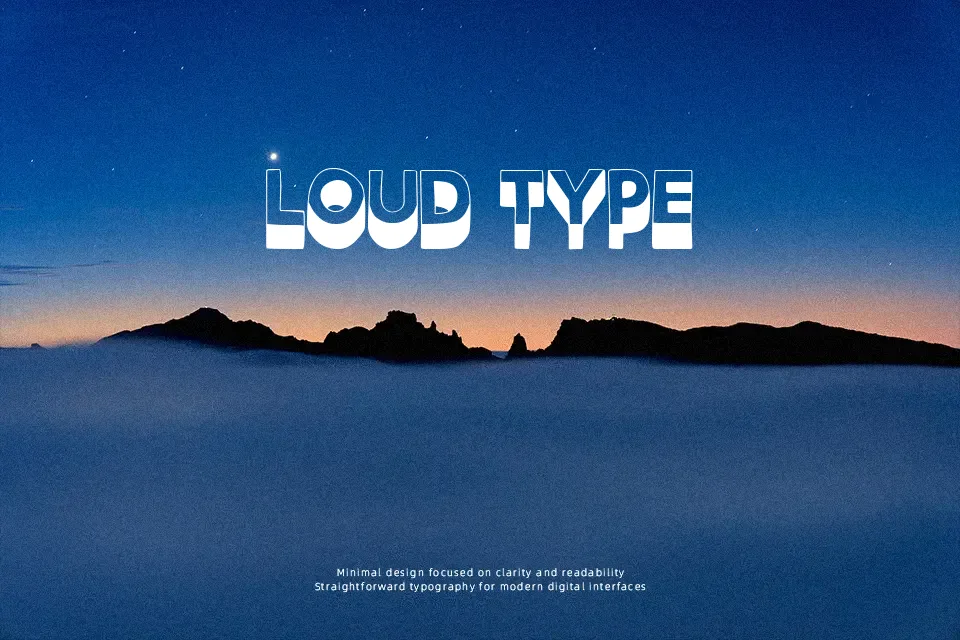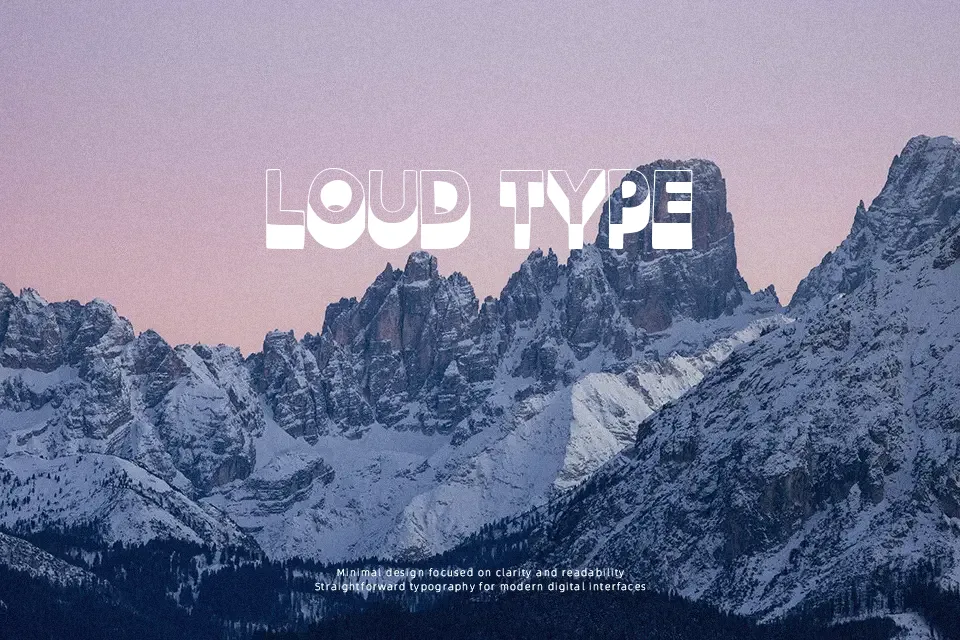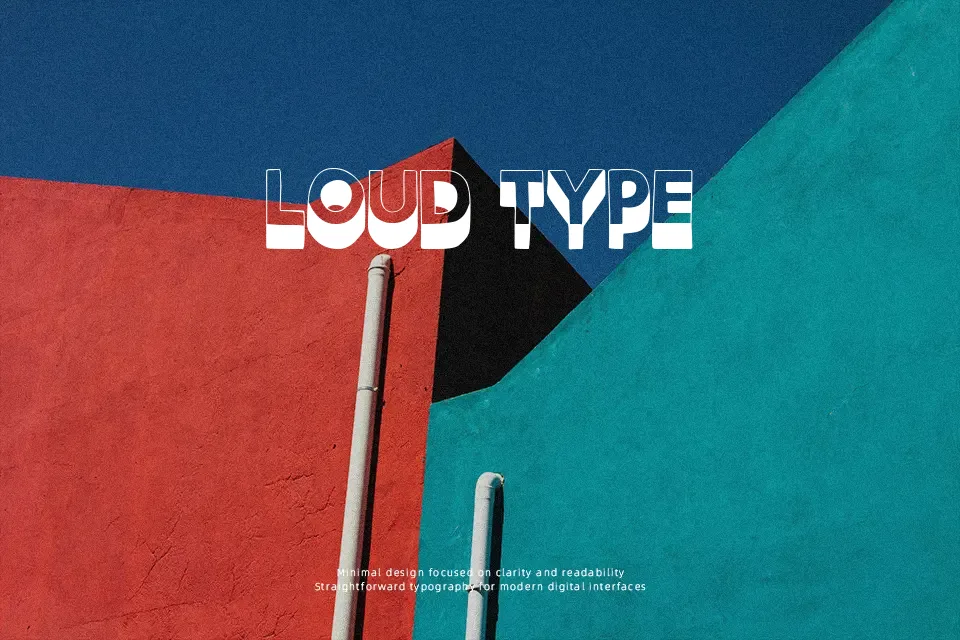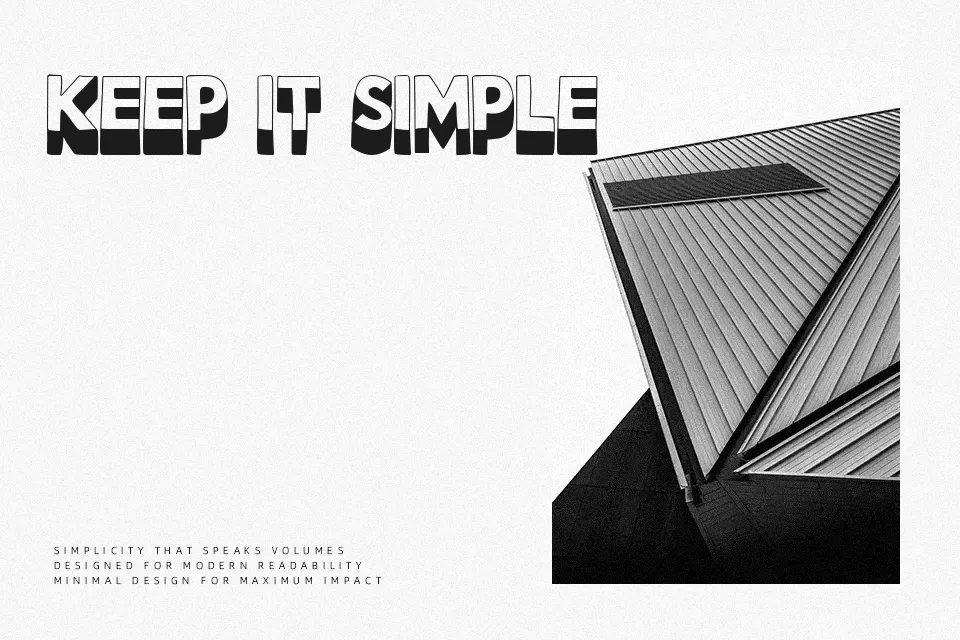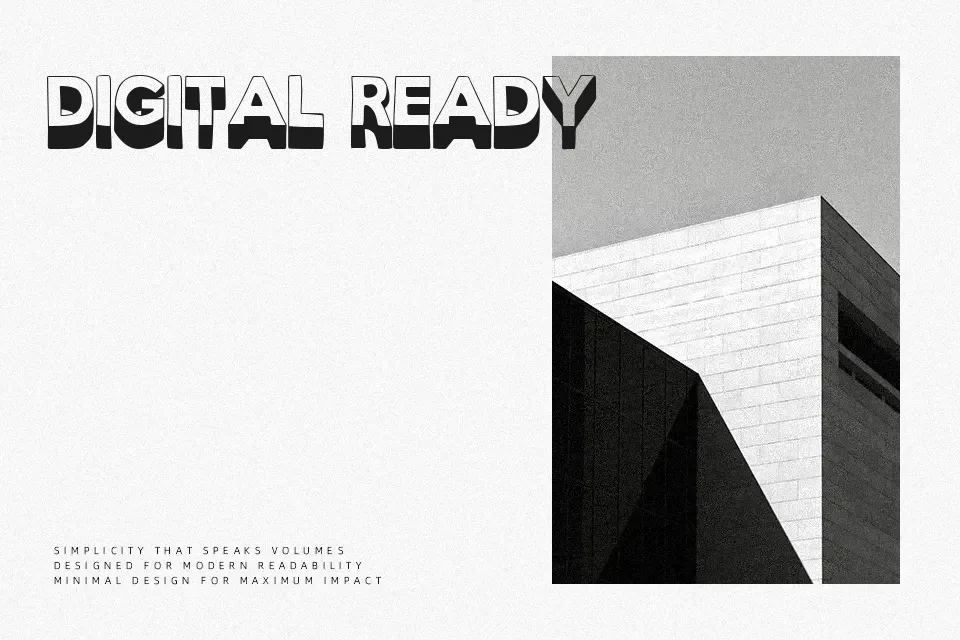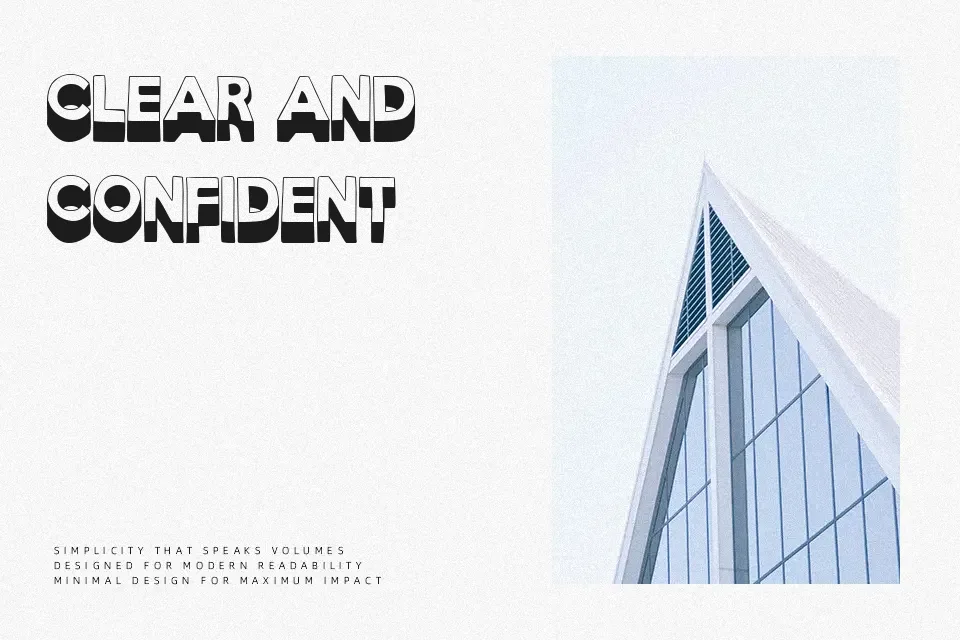
Tres y Dos, Cinco Font
Tres y Dos, Cinco Font achieves immediate graphic weight through bold sans-serif anatomy paired with pronounced three-dimensional projection. The stroke style remains remarkably uniform, maintaining heavy slab-like density alongside sharply defined angled terminals and clean geometric contours. Consistent character proportions combine with snug letter spacing, establishing a dense, rhythmic cadence across horizontal lines. In large title displays, the design ensures unmistakable visibility on event flyers, retro gaming covers, and bold product badges. However, the thick shadow blocks severely restrict legibility at intermediate and small scales, rendering continuous body text virtually unreadable. The typeface performs best when isolated as short, punchy phrases that allow its layered structure sufficient breathing room.
Best For: retro poster headlines, arcade game title cards, merchandise graphics, vintage packaging
Not Ideal For: long paragraph text, small interface labels, mobile app body copy, dense editorial layouts
Perfect for 3d, gaming, and headline, with a bold and decorative style.